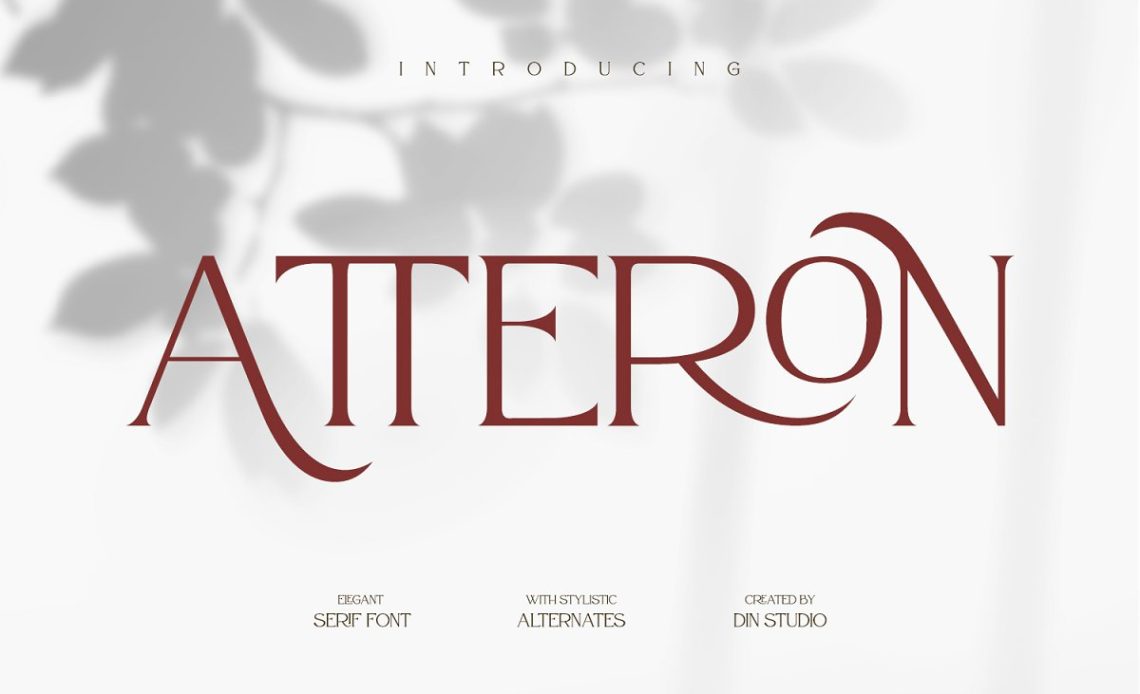
Introducing Atteron, the exquisite serif font that will elevate your design projects to new heights! Created by the talented Donis Miftahudin, this font is perfect for all your professional branding needs. Whether you're designing posters, banners, logos, book covers, album covers, quotes, invitations, greeting cards, name cards, headings, printed products, merchandise, or social media content, Atteron is the font that will make your creations stand out from the crowd.
One of the most captivating features of Atteron is its beautiful alternates, which add a touch of elegance and uniqueness to your designs. With stylistic sets and swashes, you have endless possibilities to explore and create visually stunning typography. The font also supports multiple languages, making it a versatile choice for designers around the world.
Atteron goes beyond aesthetics with its PUA encoding, offering numerals and punctuations that are both functional and visually appealing. This attention to detail ensures that your message is conveyed flawlessly, capturing the attention of your target audience.
In conclusion, Atteron is the font that will take your designs from ordinary to extraordinary. Its elegance, versatility, and attention to detail make it the perfect choice for any project. Don't miss out on this opportunity to elevate your designs and captivate your audience. Download Atteron today and let your creativity soar!